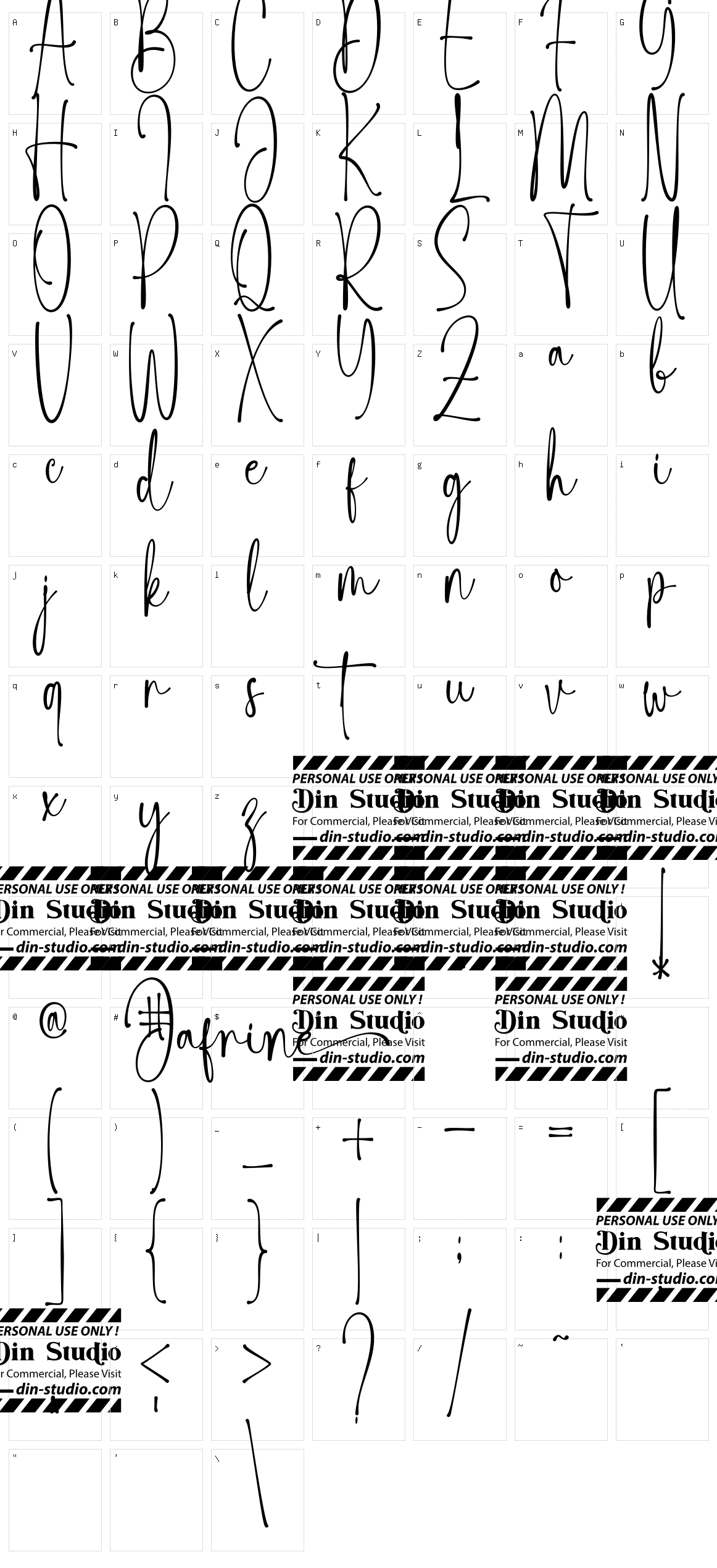
The free font Jafrine is carefully designed by Din Studio, showcasing a thoughtful balance of creativity and usability and falls under the Script font style. When you download the ZIP file, it contains only 293.34 KB of font files, making it lightweight and quick to download. Please review the license details below to understand permitted usage and distribution rights. If license information is not available, we recommend using this font for personal projects only or contacting the author directly for commercial usage permissions.